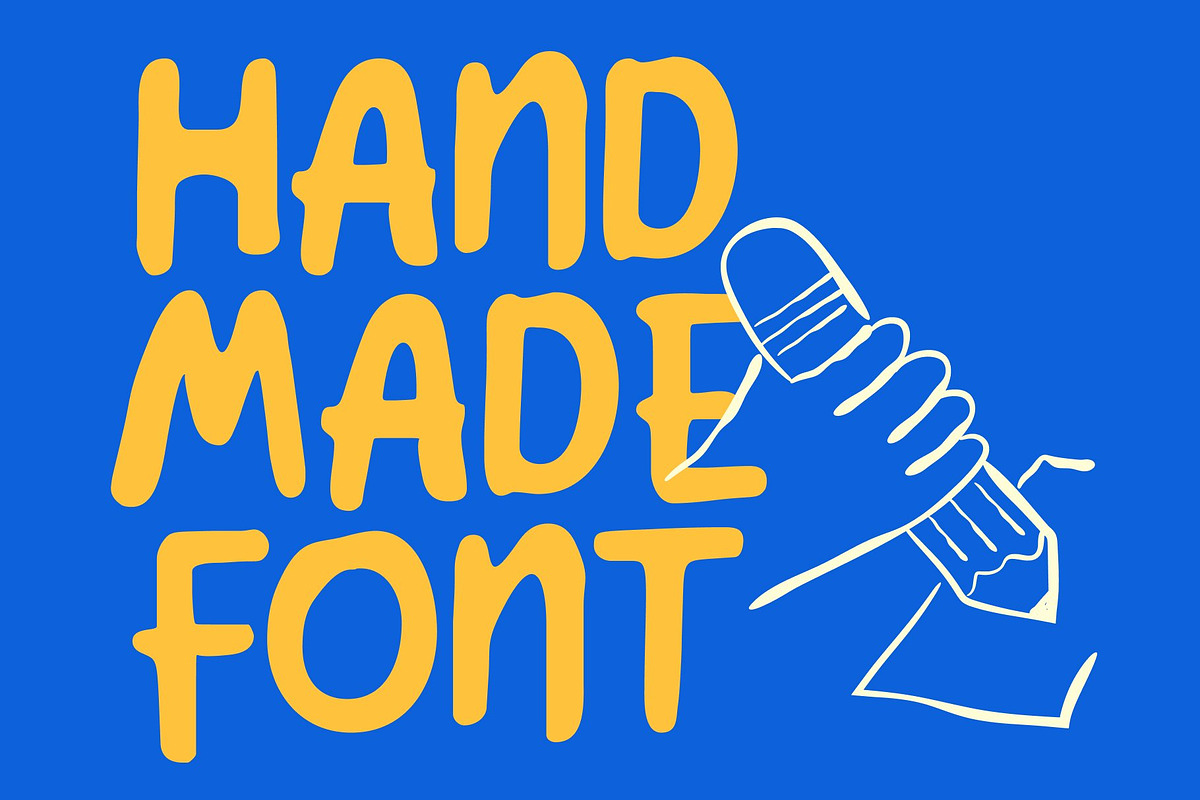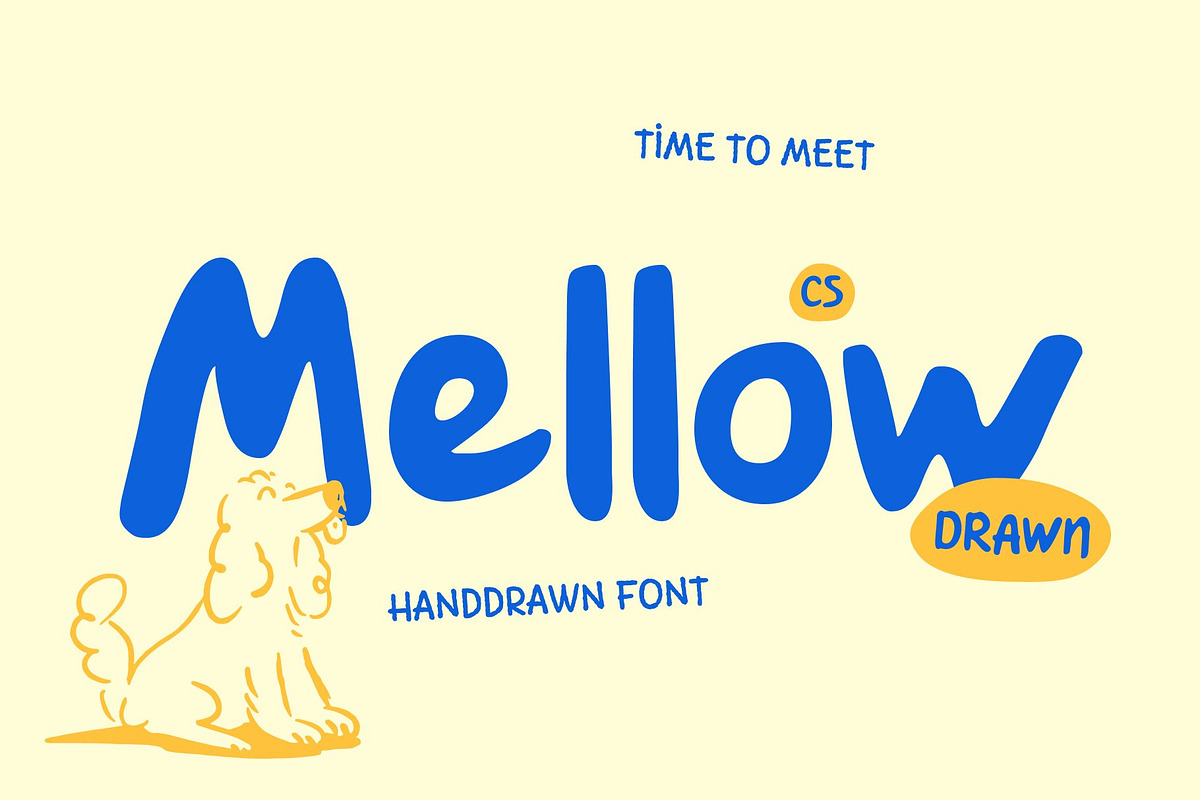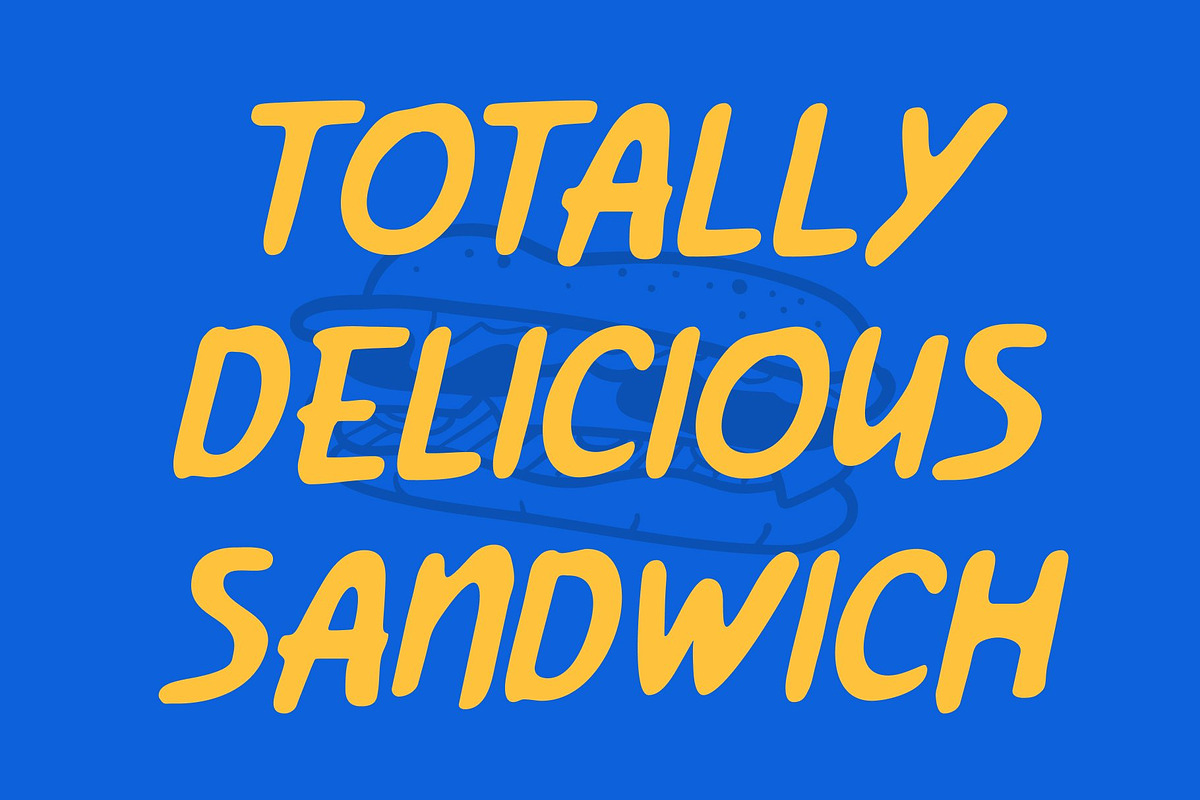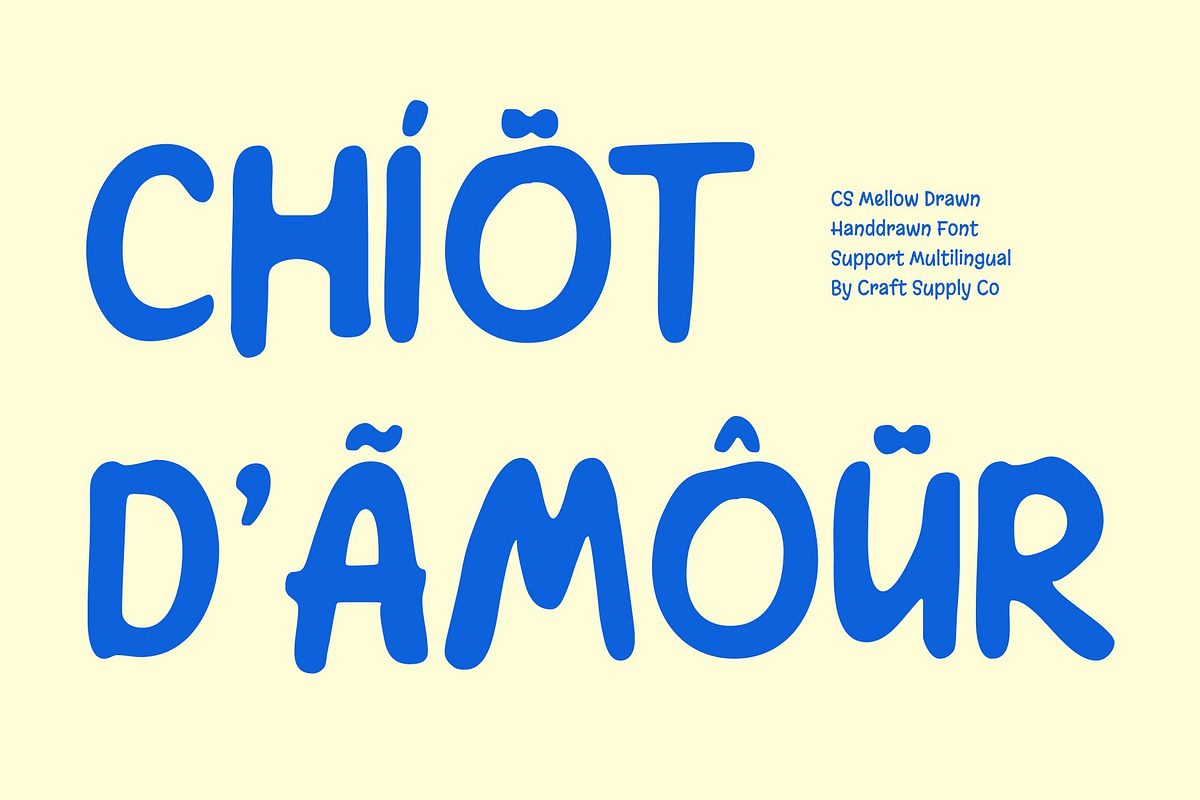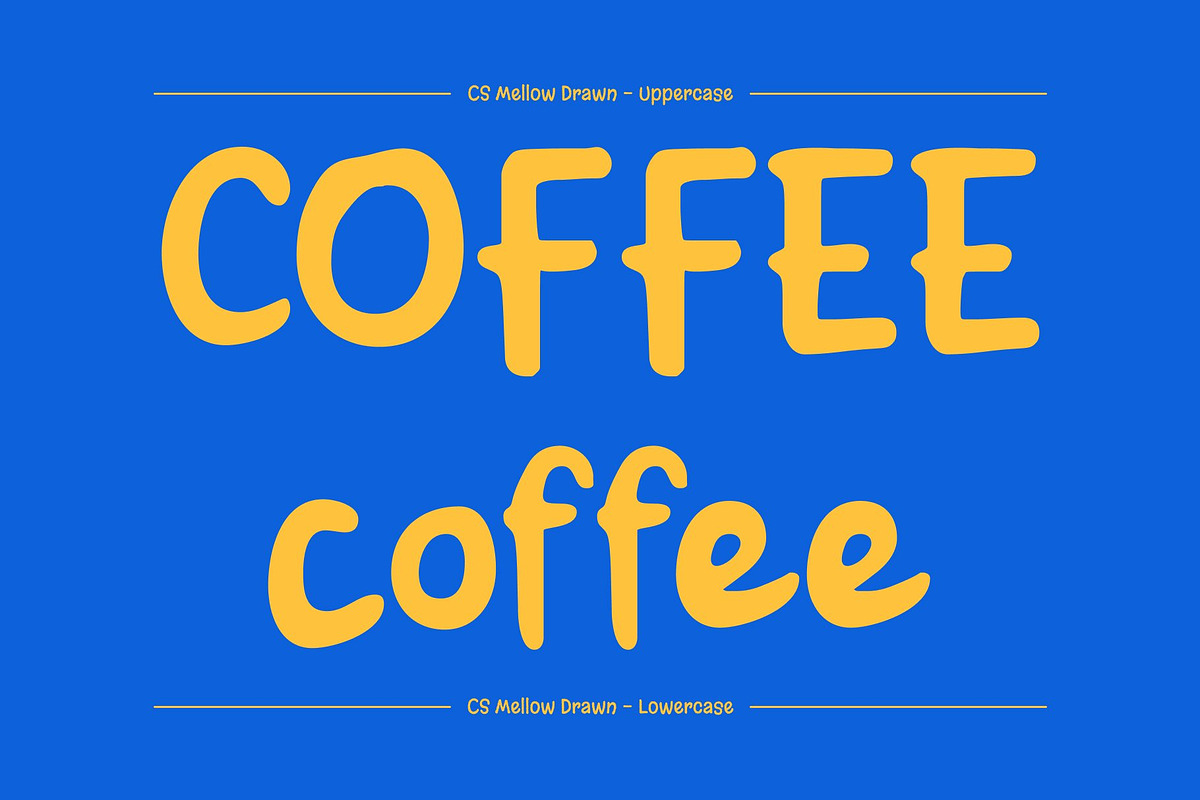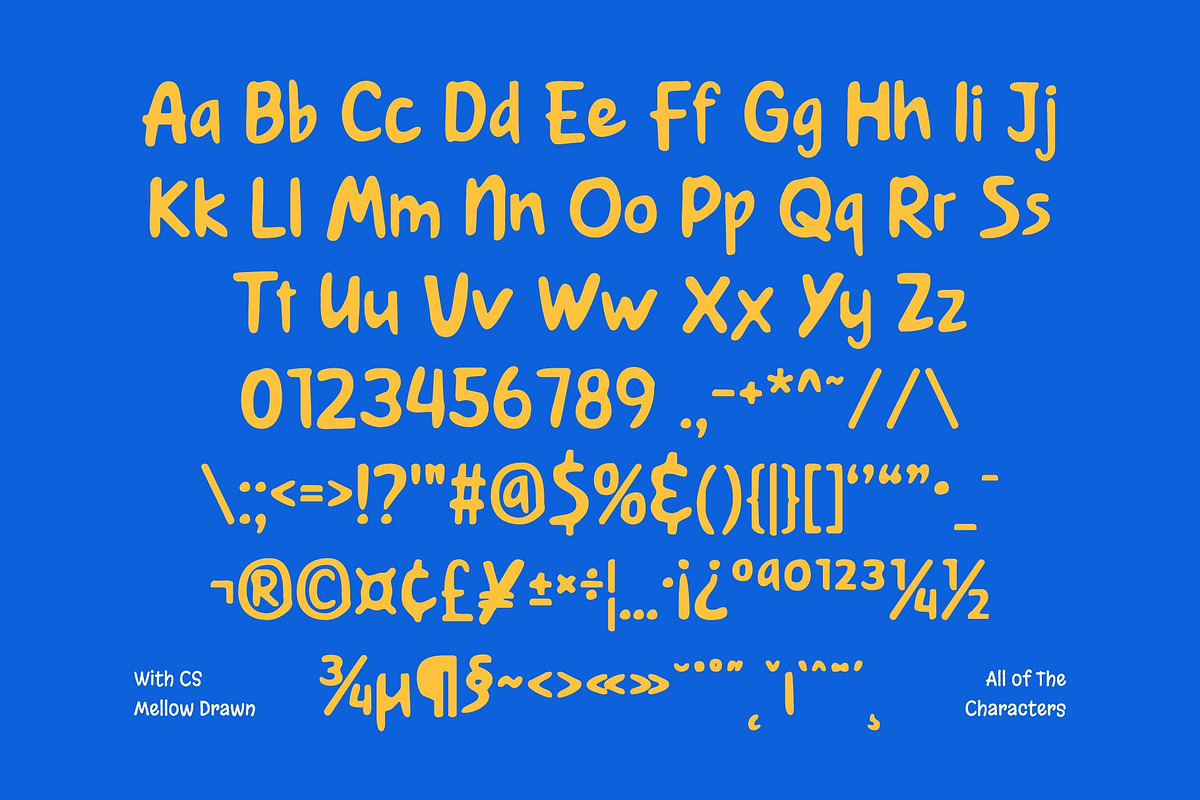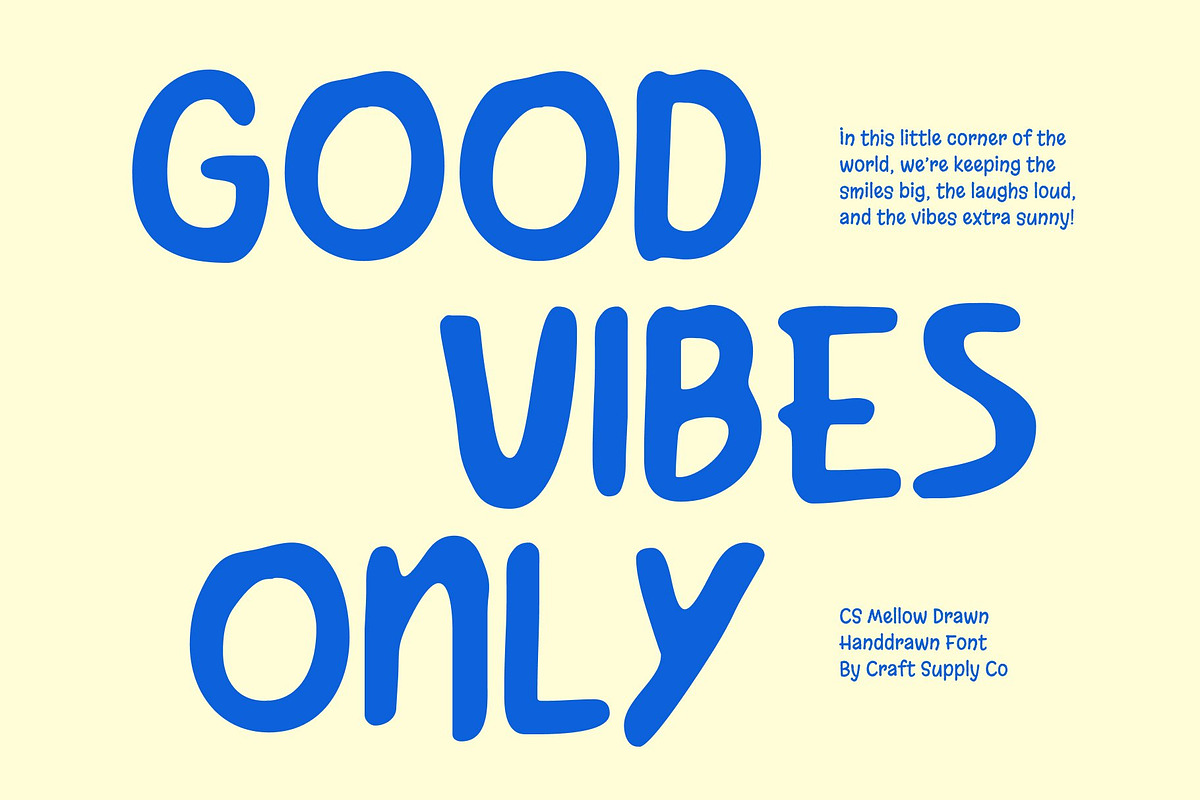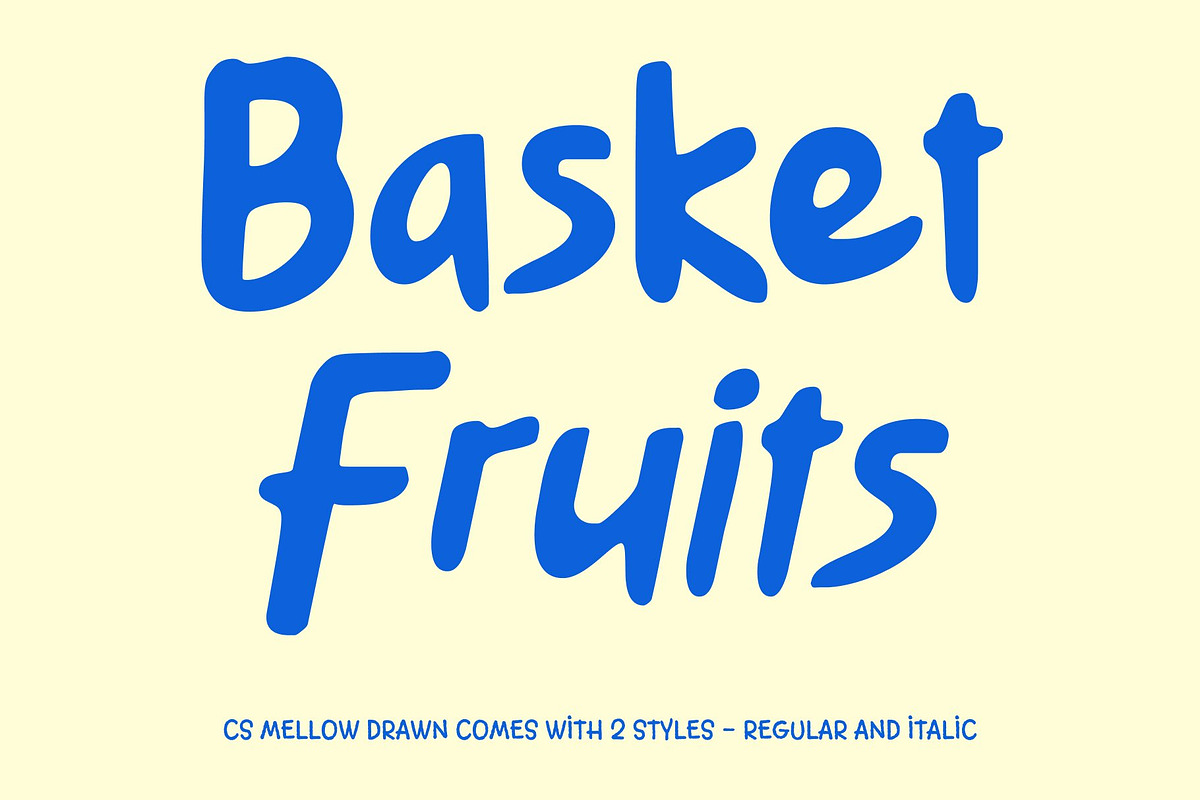
CS Mellow Drawn
CS Mellow Drawn – Friendly Handwritten Display Font with Casual Charm
Warm, Friendly, and Expressive Style This is a handwritten-style display font designed to radiate friendliness and approachability. Its expressive letterforms feel natural and relaxed, creating a welcoming tone that instantly connects with viewers. The casual flow of each character gives the font a lively personality, making text feel more human, cheerful, and full of charm.
Hand-Drawn Detail with Authentic Character What sets apart is its subtle hand-drawn detail, which adds texture and authenticity without sacrificing clarity. Each stroke carries a slightly imperfect, organic feel that enhances its personality and warmth. This handcrafted quality brings depth and emotion to designs, helping them feel more personal and engaging.
Perfect for Fun and Creative Projects This font shines in projects that aim to feel playful, creative, and inviting. It works beautifully for branding, posters, fun editorial layouts, packaging, and social media graphics. Its friendly nature makes it especially suitable for lifestyle brands, creative studios, and designs that want to communicate joy and approachability.
Casual Charm with Versatile Appeal Whether used as a bold headline or a decorative accent, this font adapts effortlessly across various design applications. Blending casual charm with expressive clarity, it offers designers a versatile handwritten font that brings personality, warmth, and a relaxed modern feel to every composition.